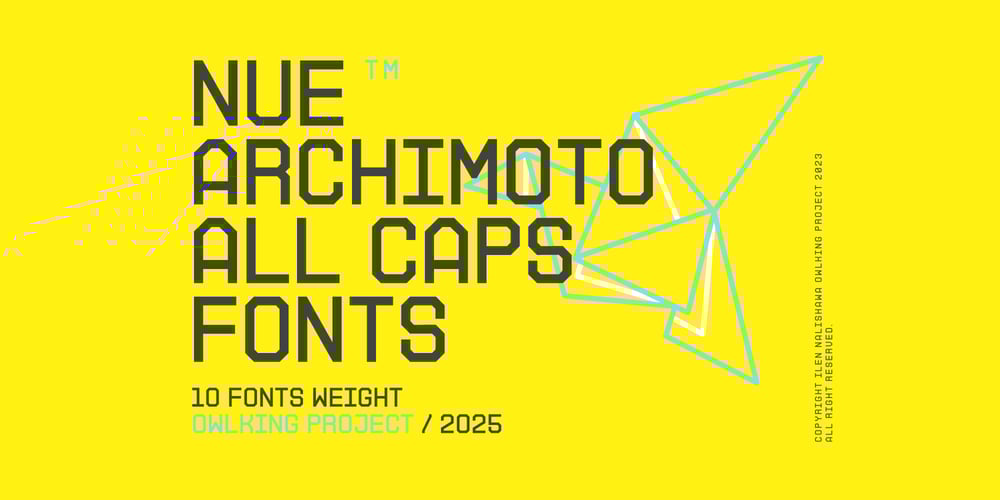
Nue Archimoto Font Family was designed by Darhilen and published by Owl king project. Nue Archimoto contains 10 styles and family package options. Nue Archimoto is a refinement of the previous san serif font form to be simpler, still with a technological style, nue archimoto can also be applied in the form of modern design and can even be used for retro design. Let’s start designOwlking project